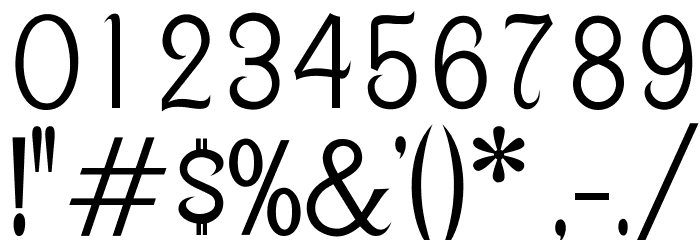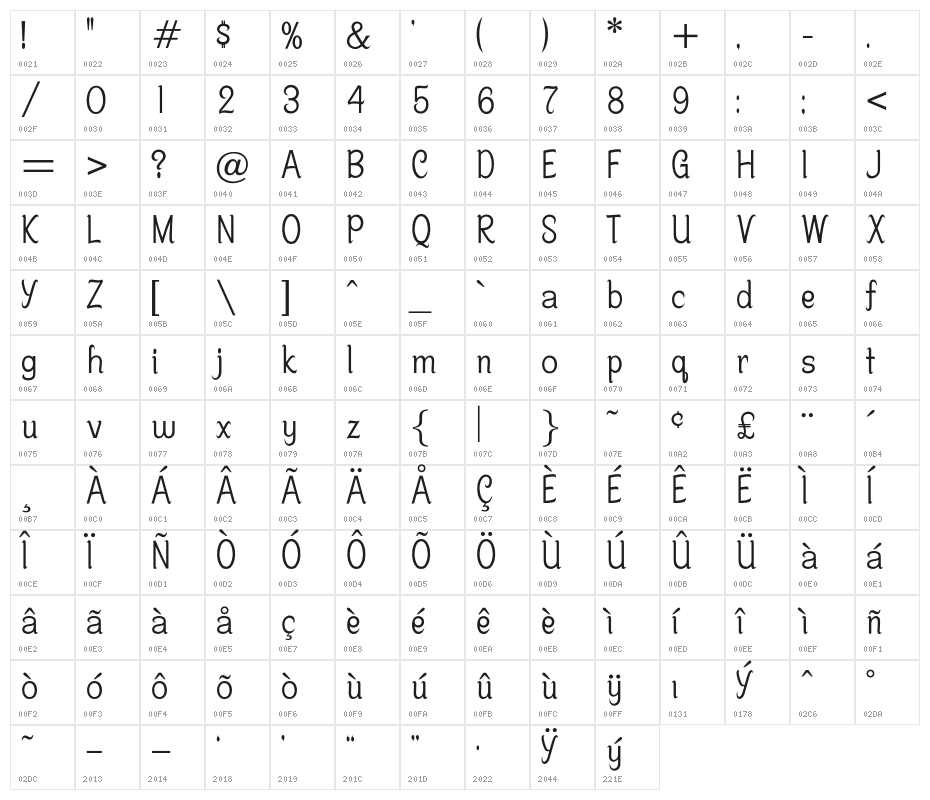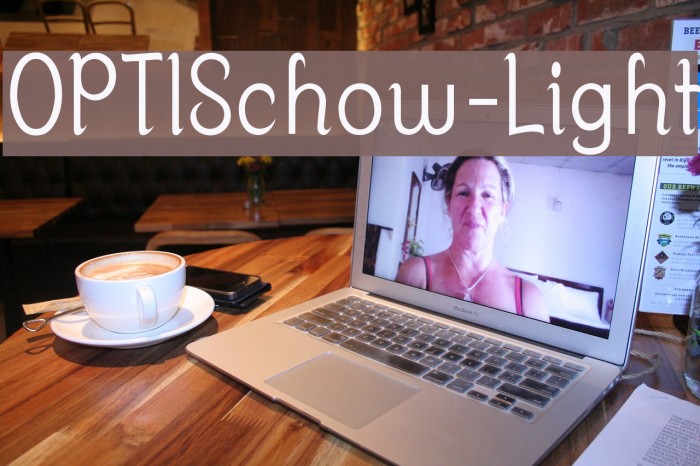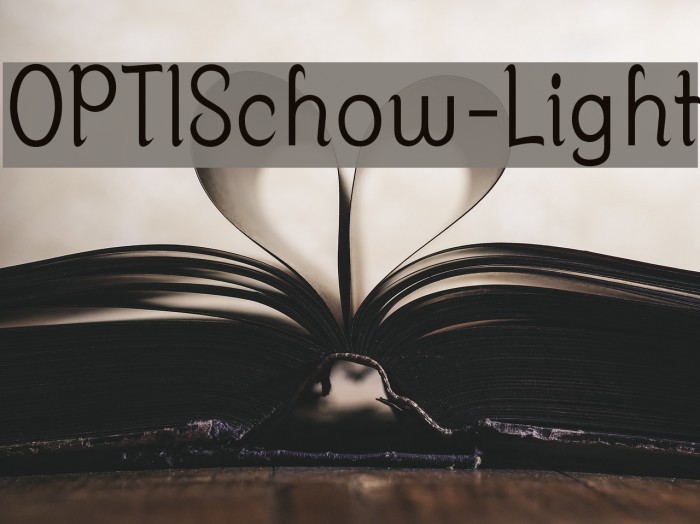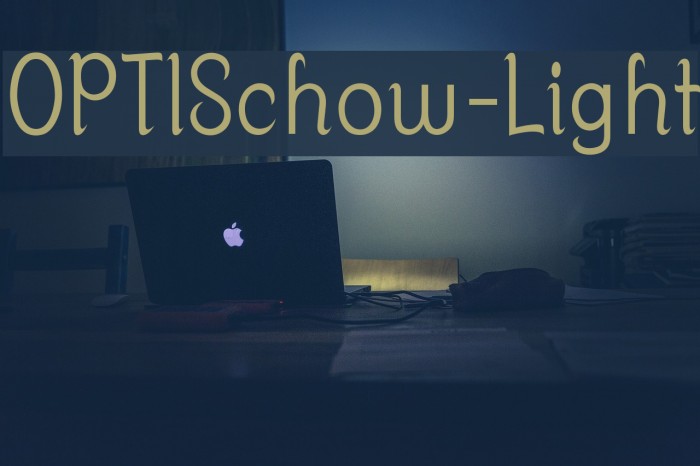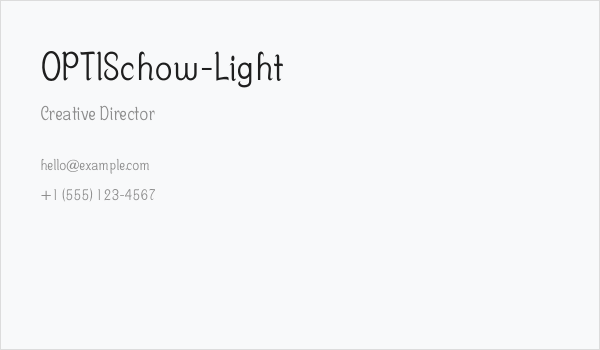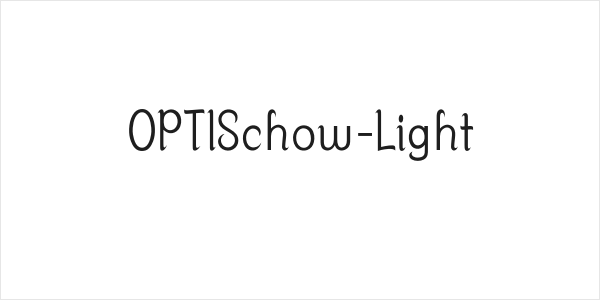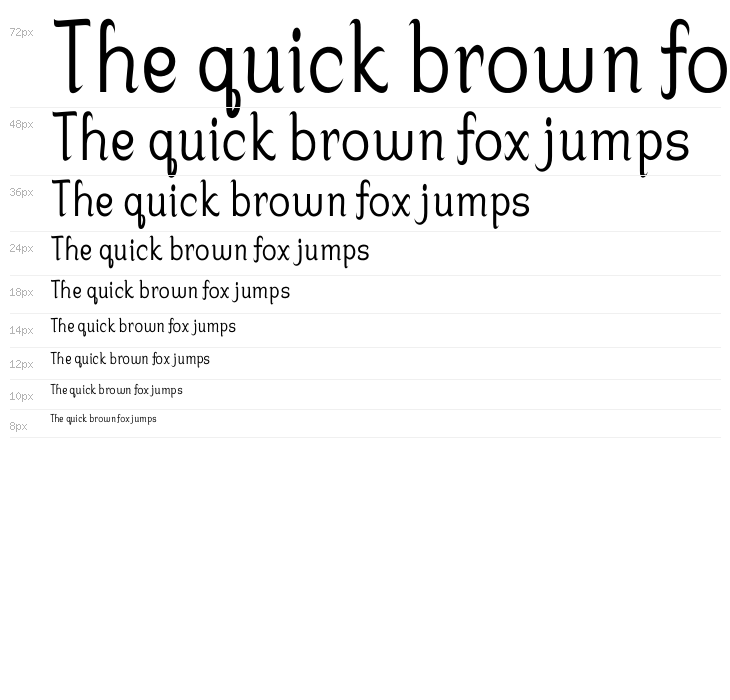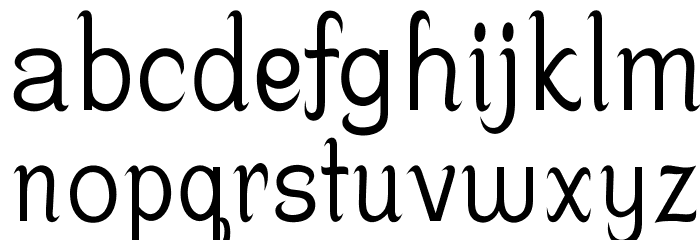
OPTISchow-Light Font
OPTISchow-Light Description
This font features a playful and whimsical design with a handwritten style. The characters have a unique flair, with slight curves and varying stroke widths that add a touch of personality. The uppercase letters are tall and slightly narrow, while the lowercase letters maintain a consistent flow with rounded edges. Numbers and special characters are designed to match the overall aesthetic, providing a cohesive look. The font's light weight and decorative elements make it suitable for creative projects where a casual and friendly tone is desired.
| Use Case | Headlines, Logos, Creative projects |
| Proposed Projects | Ideal for children's books, greeting cards, playful branding, and creative invitations. |